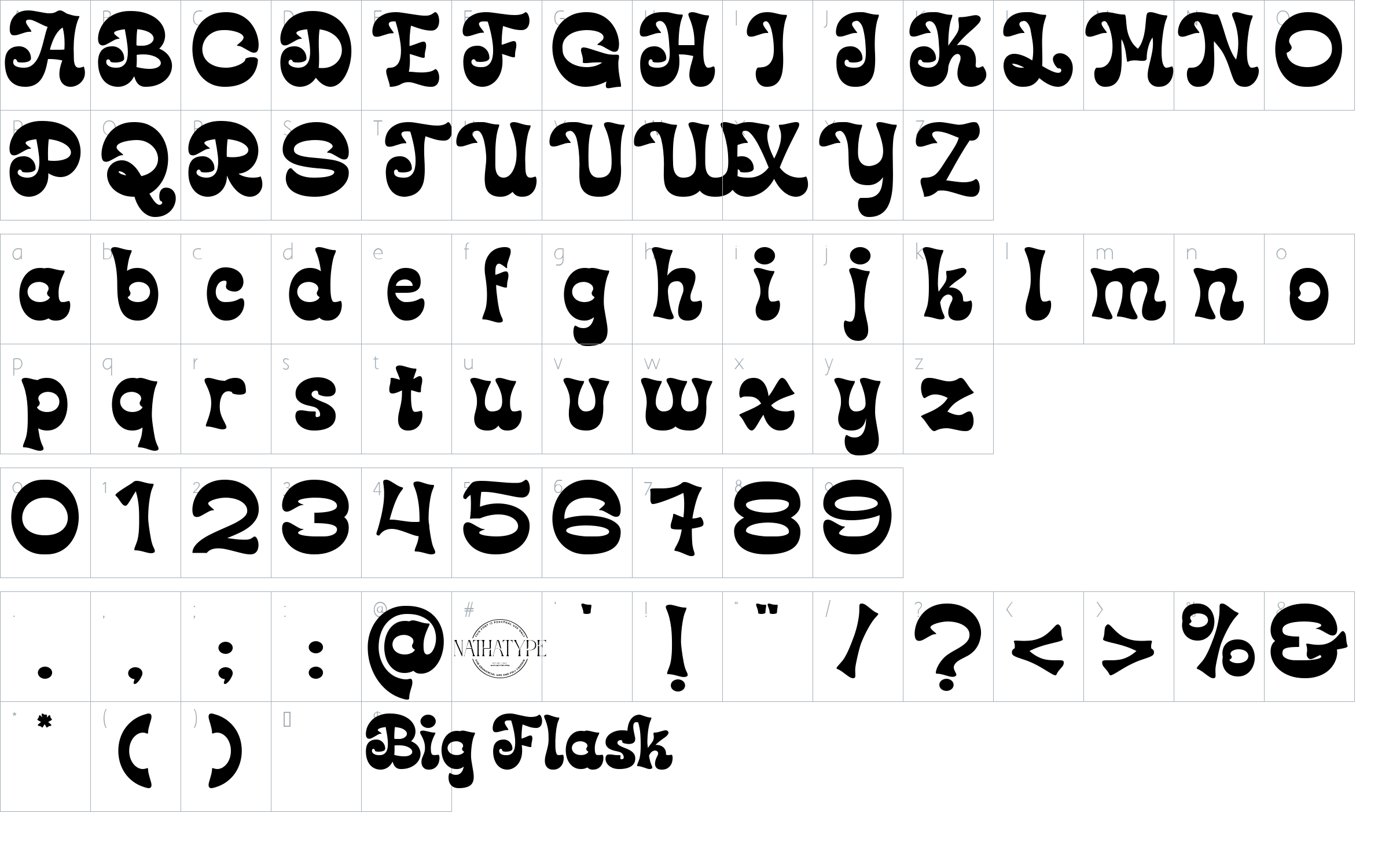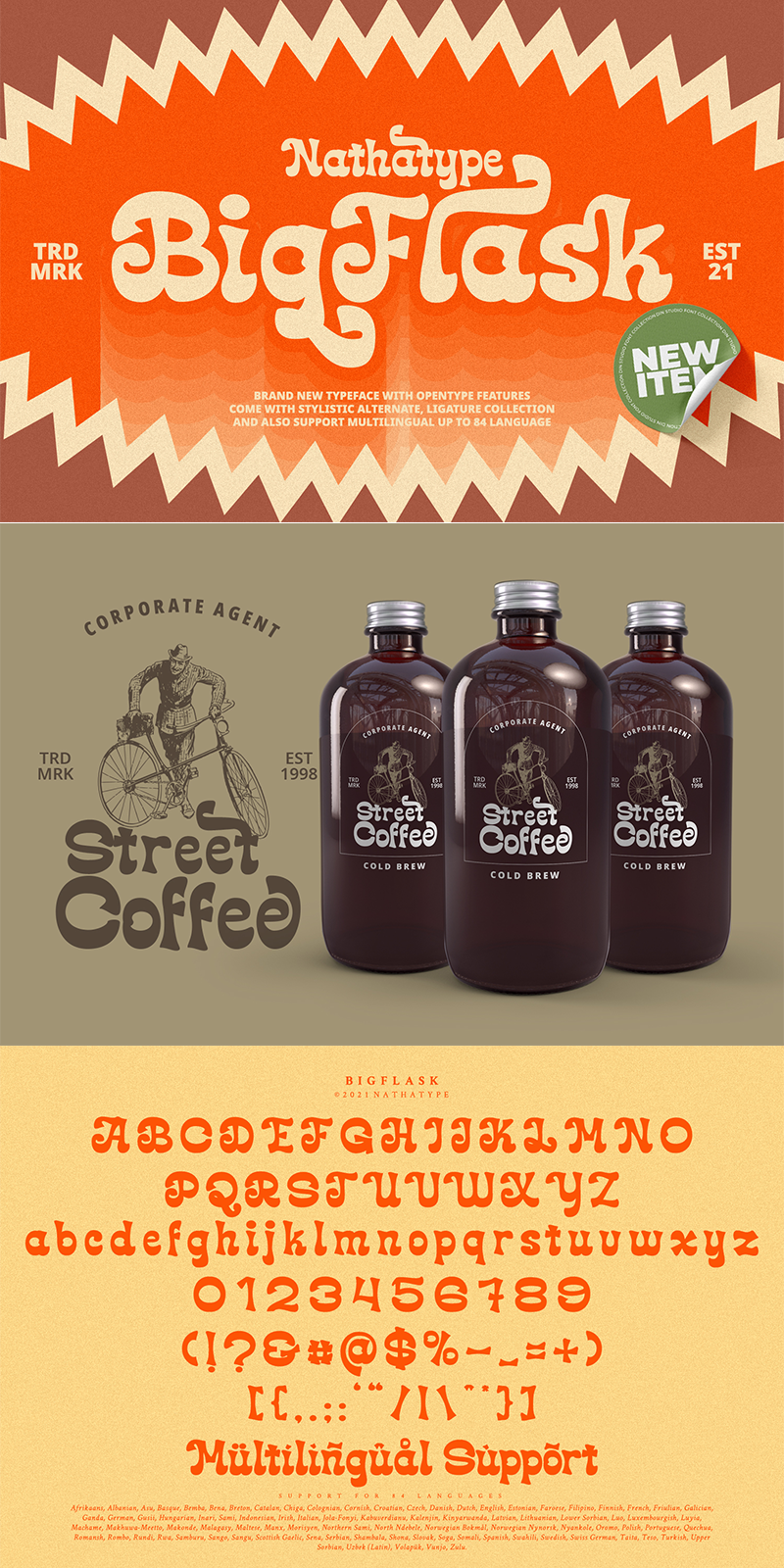
Big Flask Font
Designed by Natha Type
About Big Flask
Big Flask is a typeface that will make your projects elevate. An excellent choice to add the right amount of retro touch. This typeface with artistic style looks very interesting for loads of different projects and promotions.
• Stylistic Sets